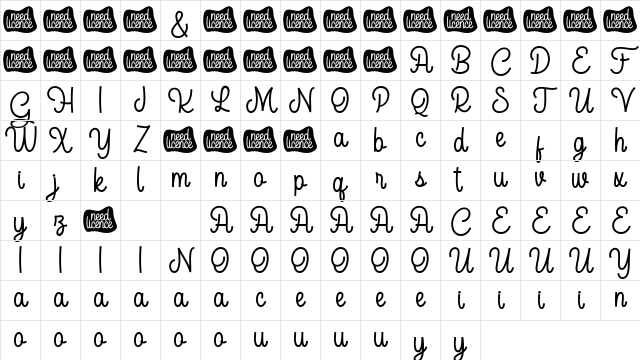
AcapelaDEMO Regular Free Font
AcapelaDEMO Regular
Designer: Holis Majid
Design Context for AcapelaDEMO
AcapelaDEMO is a composed and adaptable typeface that performs quietly and consistently across a wide range of design contexts.